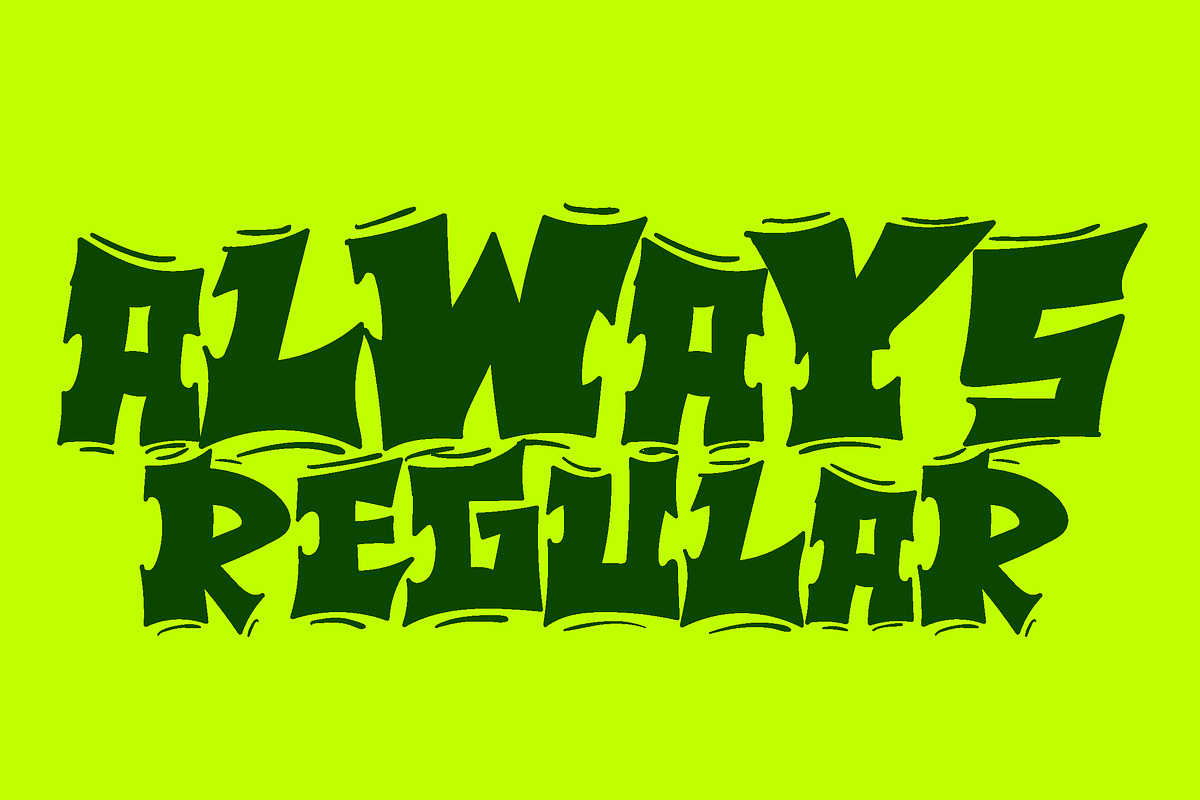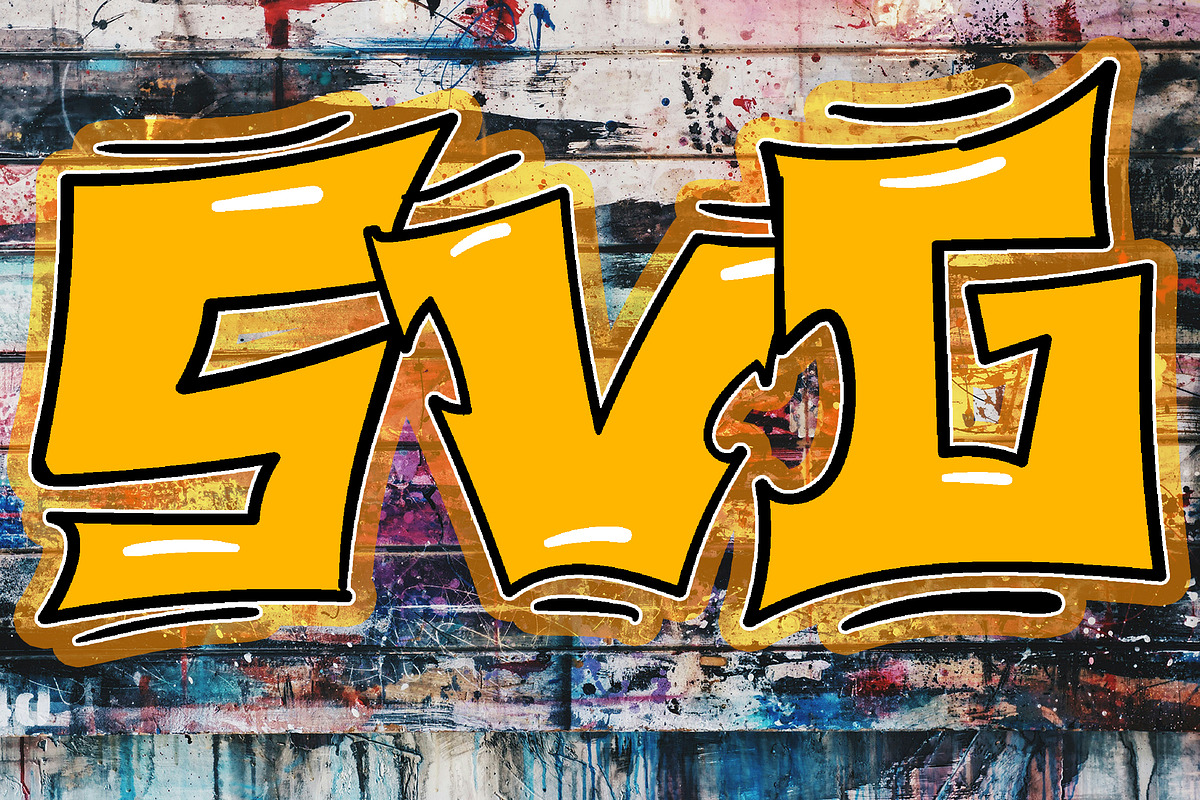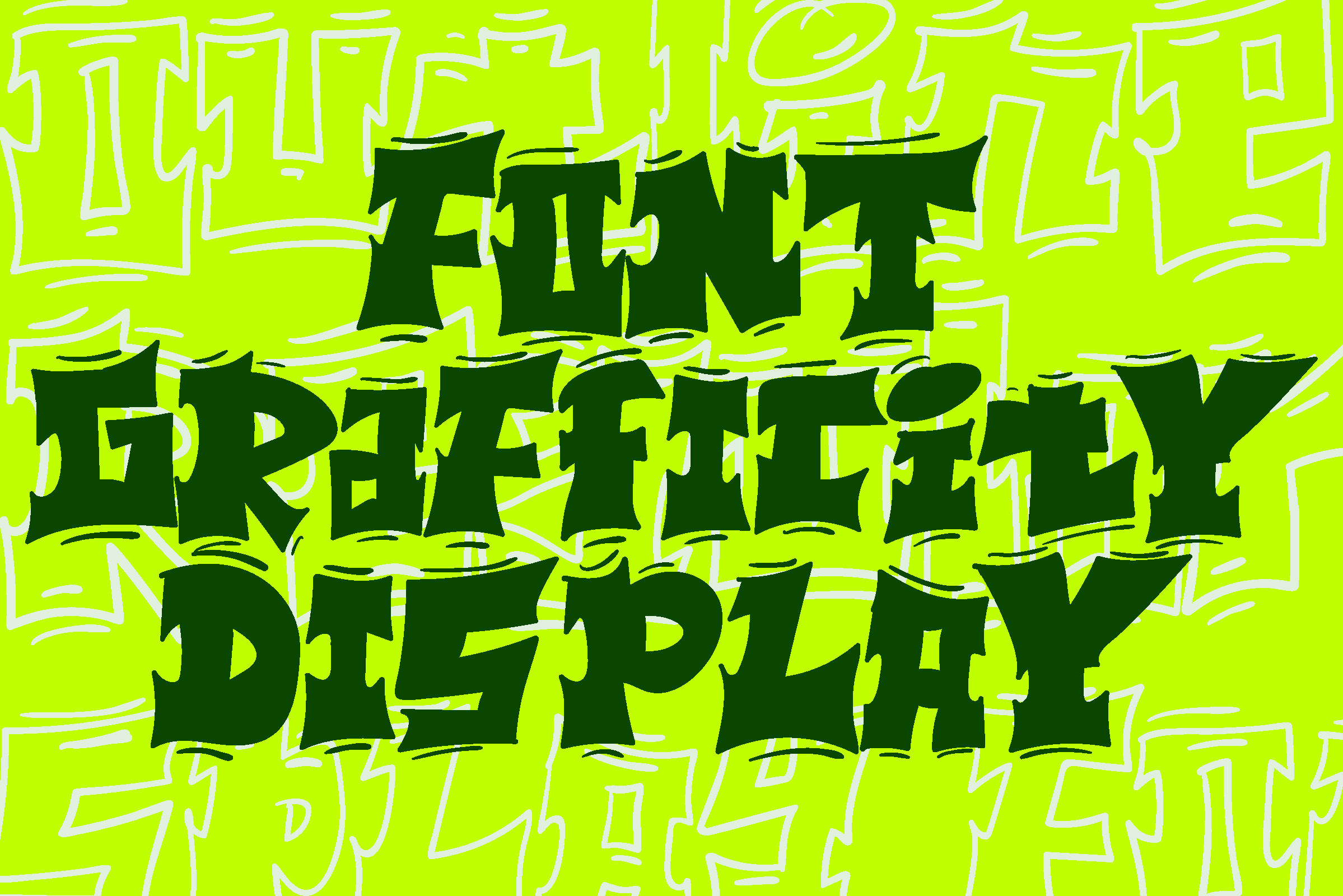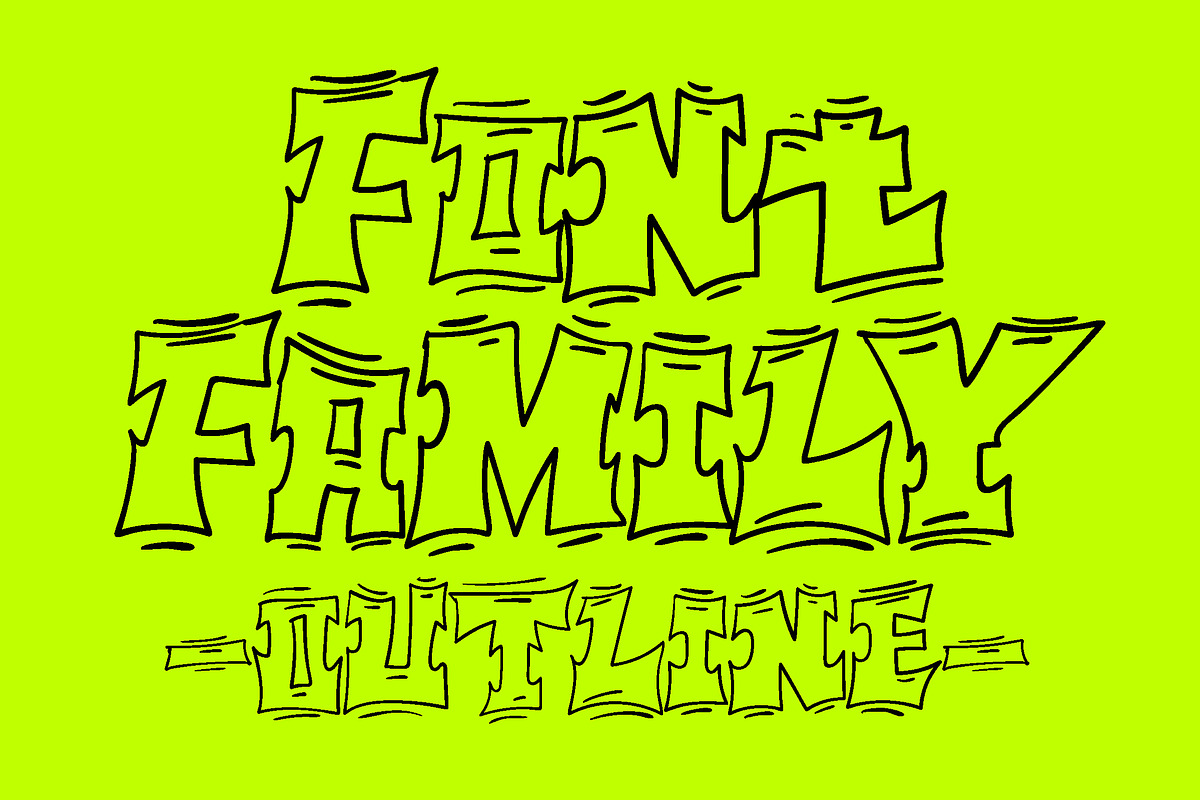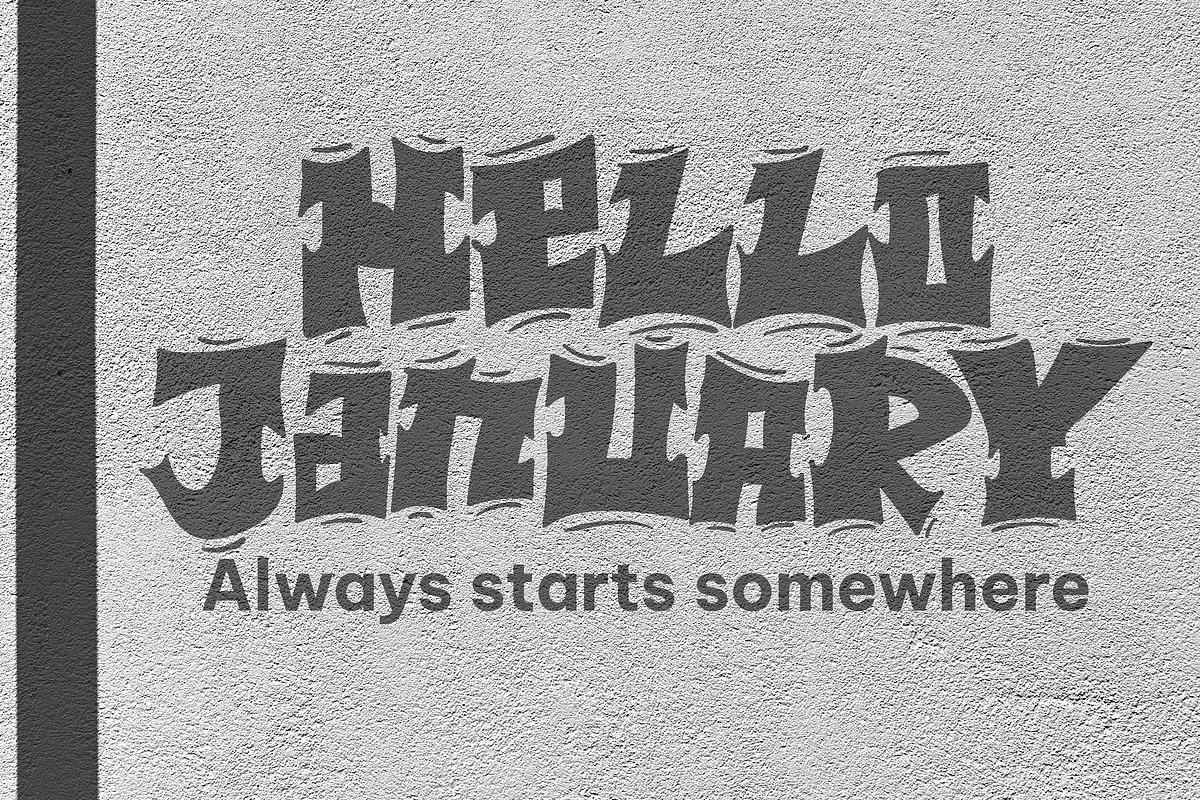
Grafficity - Display Font
Grafficity is a bold and expressive graffiti font that captures the raw energy and creativity of street art. Perfect for urban-themed projects, tshirts, hoodie, this font brings a retro, rebellious vibe to your designs with its edgy letterforms and dynamic style.